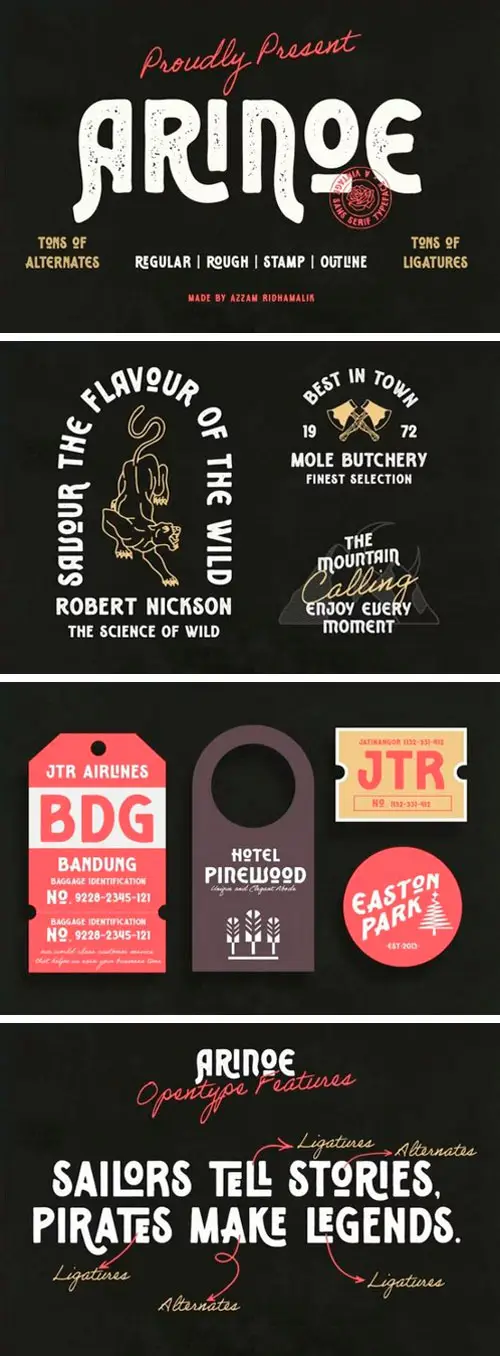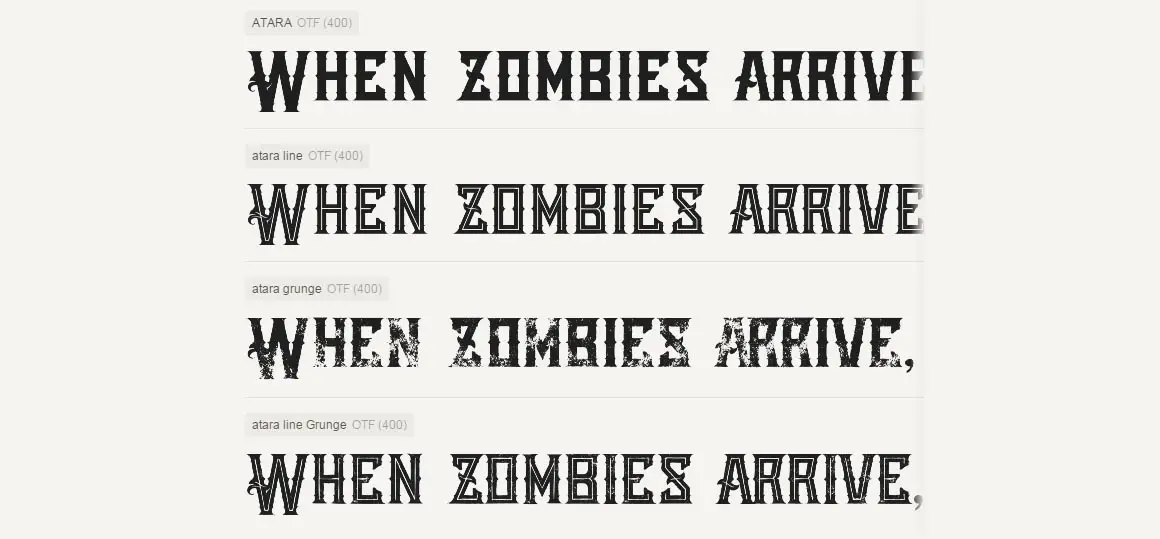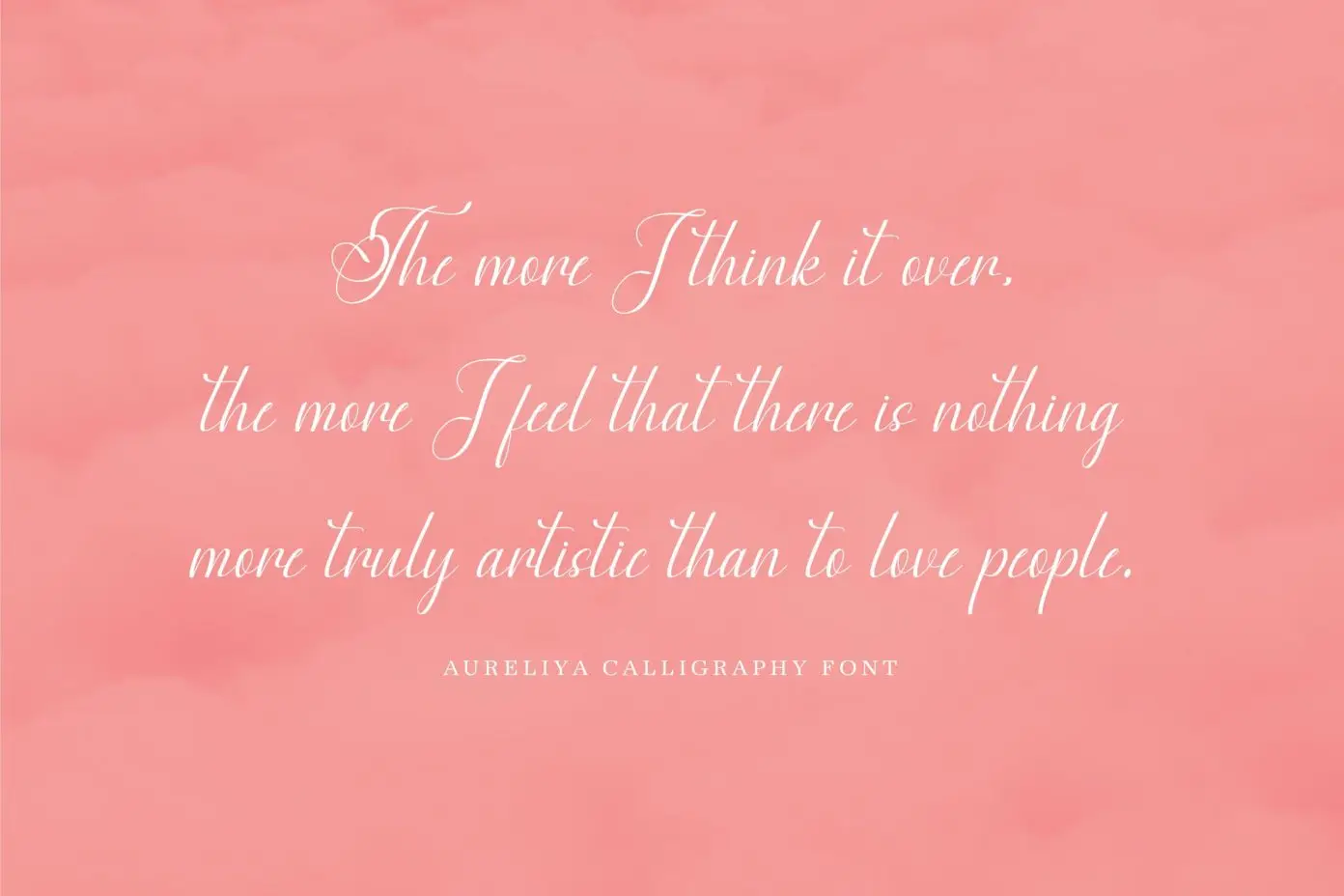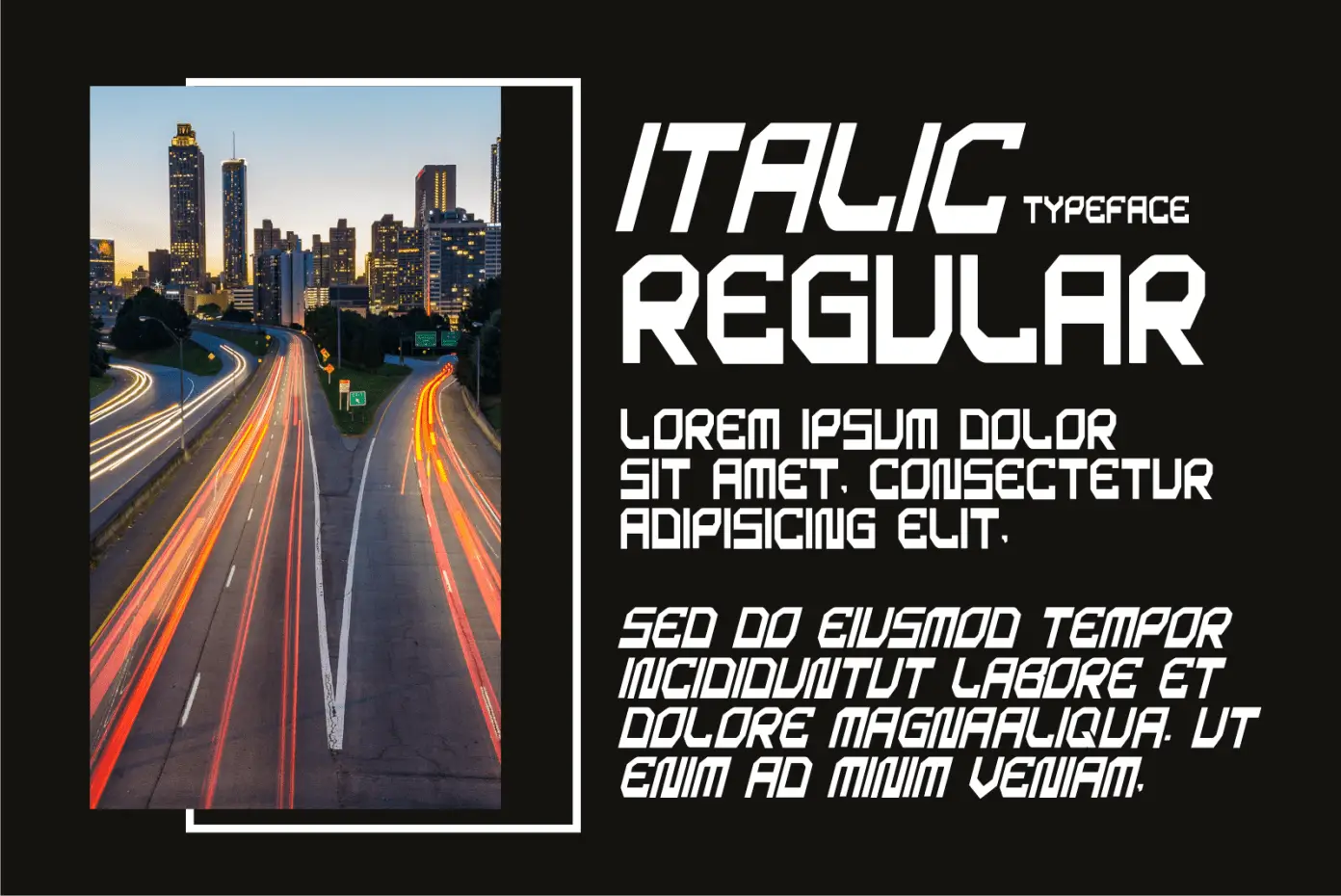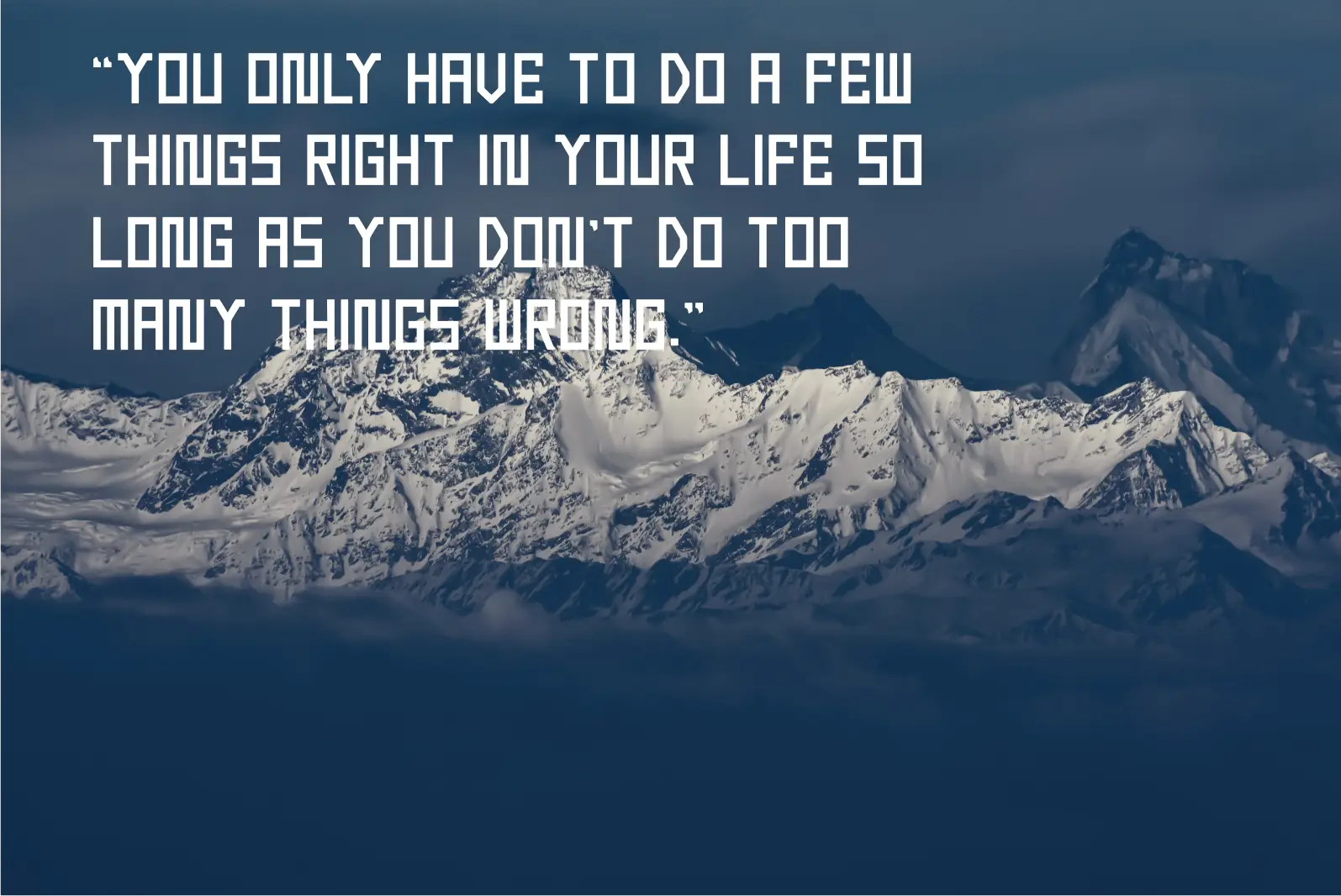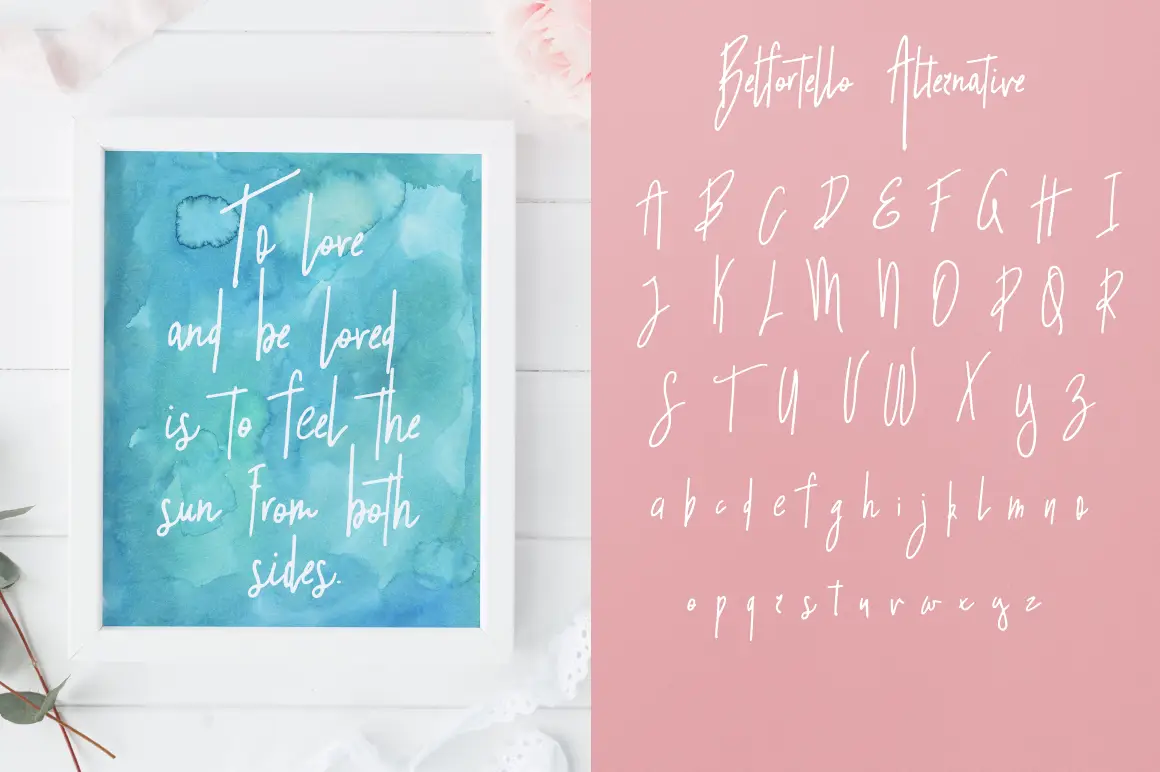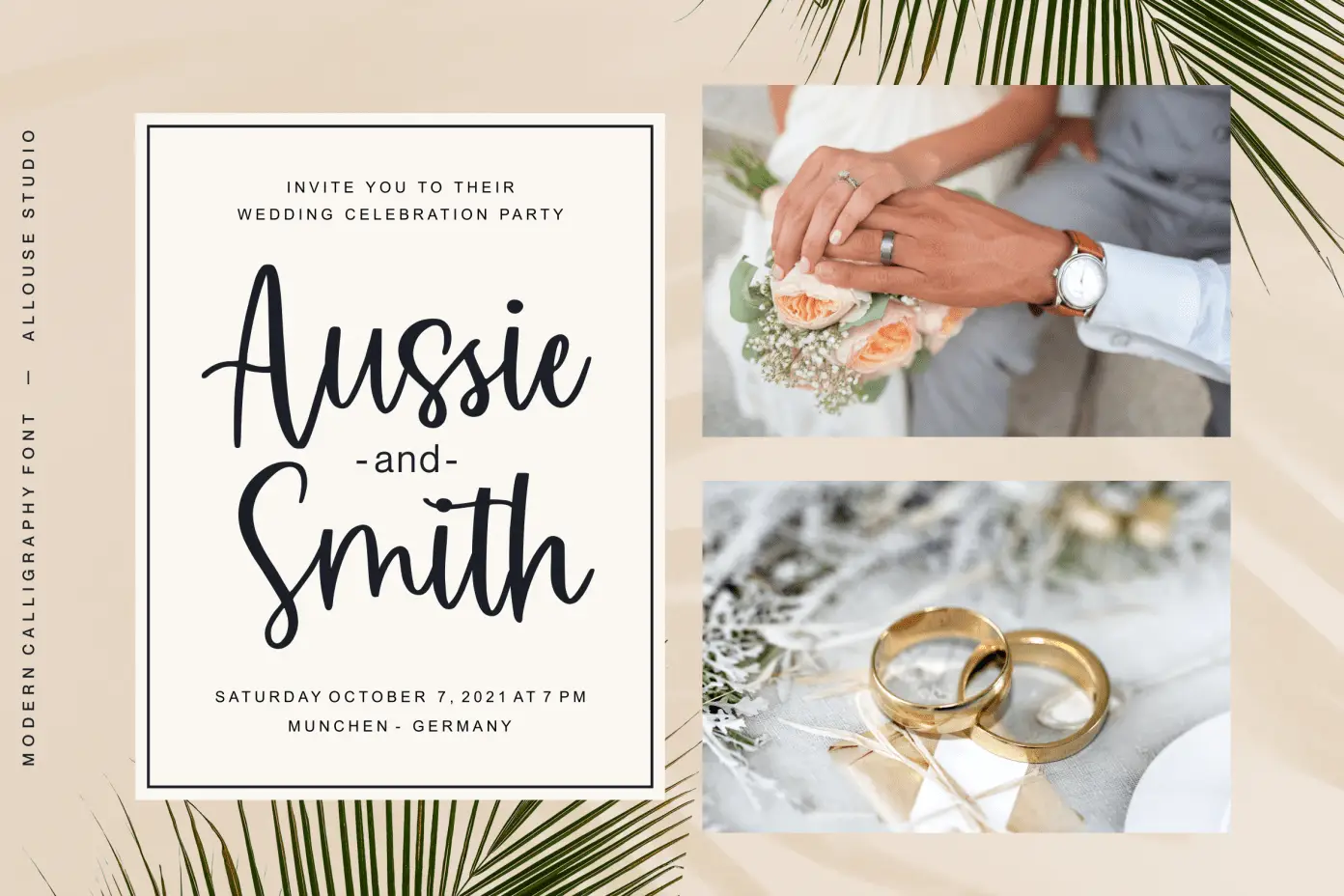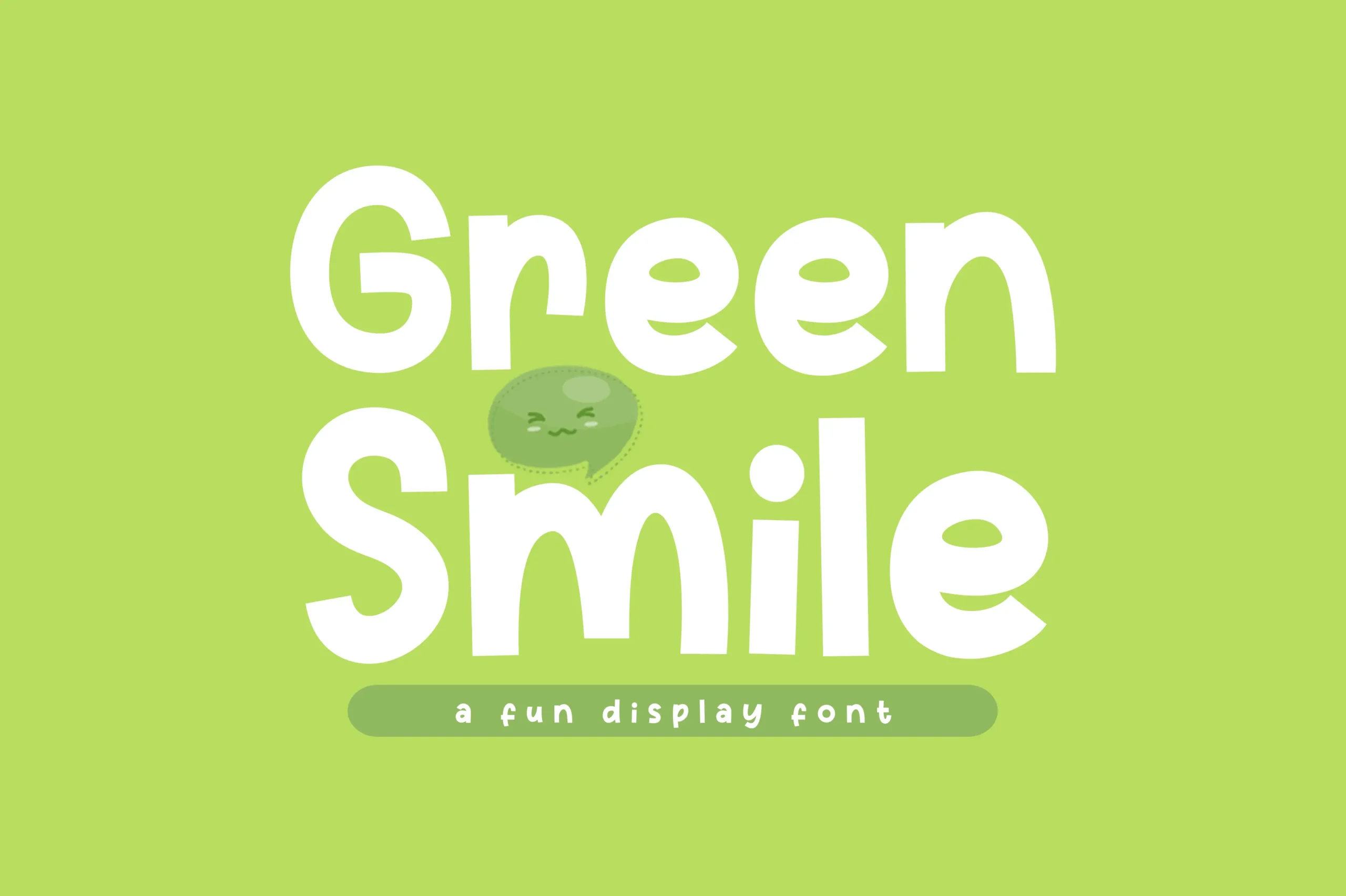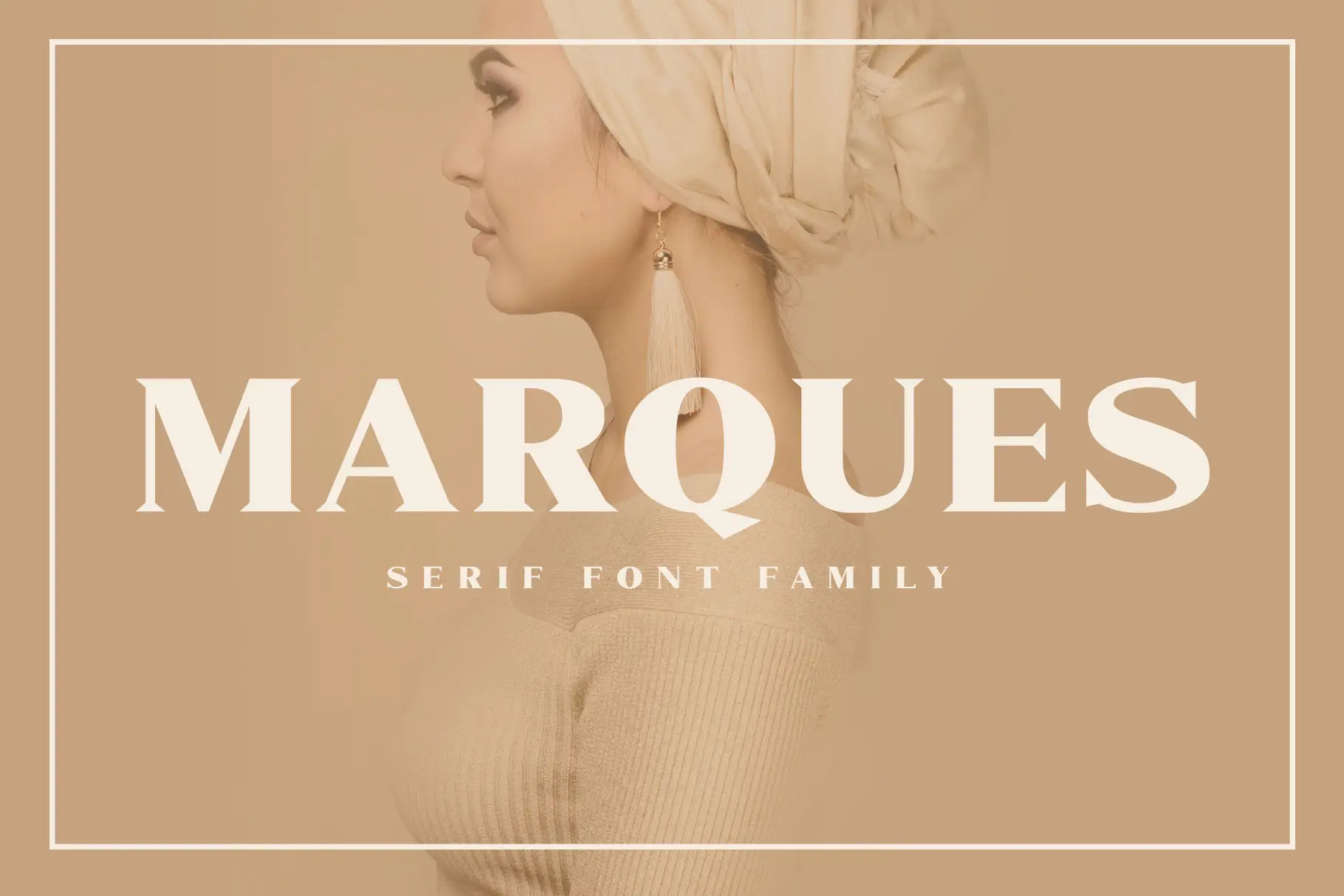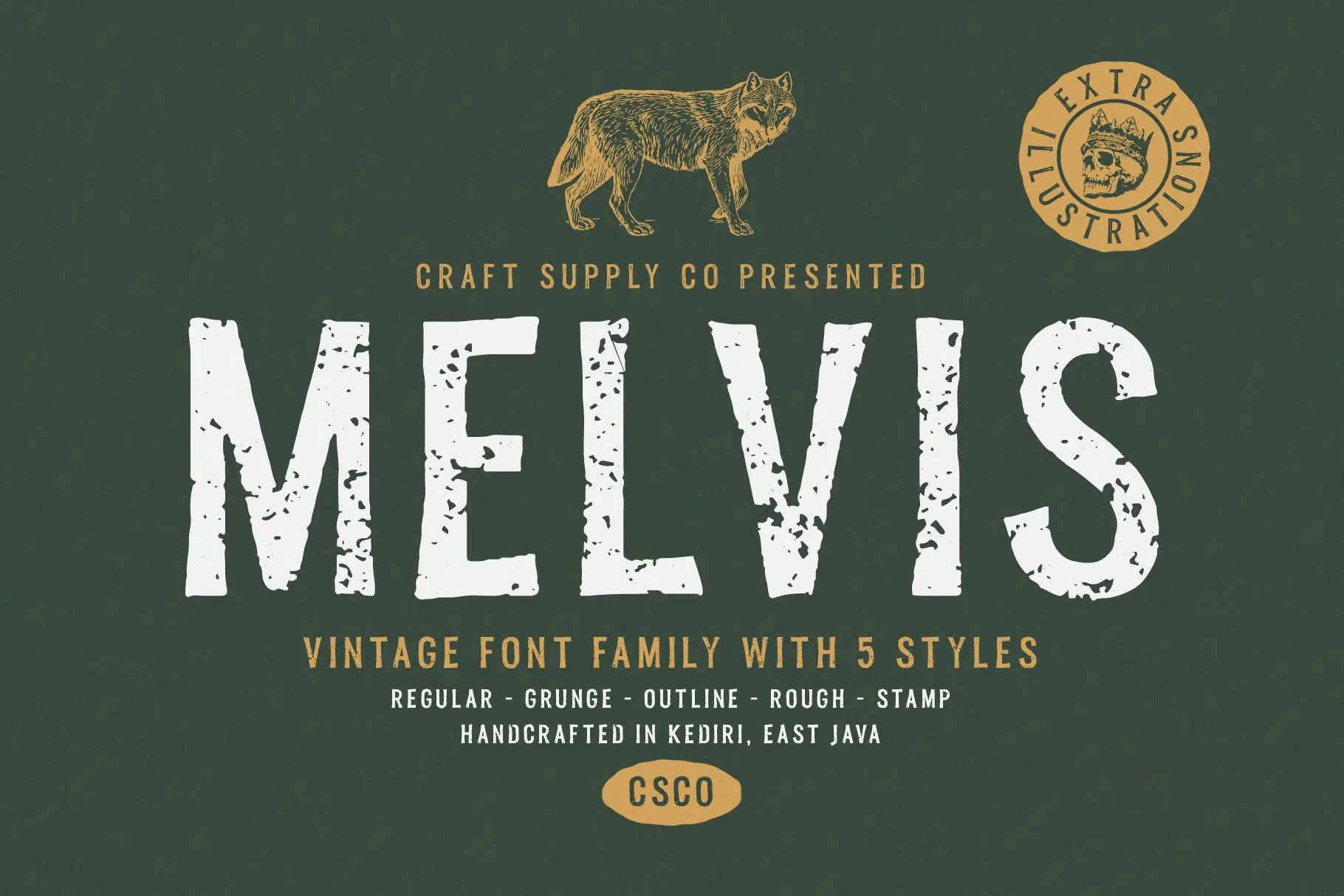
Roku
Unleash your creativity with the **Roku** digital asset! 🚀 It’s packed with high-res graphics and customizable elements that make branding and web design a total breeze. Seriously, your workflow will thank you. 😎
Badger Valley Sans Serif Font
Clean, modern, and incredibly versatile—**Badger Valley** is the sans serif you didn’t know you needed. 🌲 Perfect for branding and digital interfaces, its multiple weights give you total flexibility. Go ahead, make it your go-to. 💻
Aureliya Calligraphy Font
Add a touch of pure elegance to your invitations and logos with **Aureliya**! 💌 This calligraphy font is dripping with sophistication and class. It’s simply *gorgeous* for any project that needs a refined, handwritten feel. 🖊️
Aveosa Display Font
Need something that screams *look at me*? 👀 **Aveosa** is a bold display font with unique character shapes and stunning curves. It’s perfect for headlines and branding that demand attention. Make a statement! 🗣️
Belfortello 2
**Belfortello 2** is back and better than ever! 💥 This versatile design asset comes with high-quality, customizable elements that add a professional, unique flair to any project. Super easy to use and totally stunning. ✨
Bellamosley Script Font
Get ready to fall in love with **Bellamosley**! 💕 Its flowing cursive letters are the definition of elegance and sophistication. Perfect for wedding invitations or any project that needs a romantic, personal touch. 📜
Atara
Level up your toolkit with **Atara**! 🛠️ This collection of carefully crafted, high-quality graphics is perfect for both print and digital media. It’s the versatile asset that every designer needs tucked in their back pocket. 🔥
Autography Script Font
**Autography** captures the magic of real handwriting! ✍️ Its flowing curves and unique character make it incredibly charming for branding, quotes, and social media graphics. And the best part? It’s super easy to read. 👌
Jenorex Friday – Font Duo Vqdfgk
Who doesn’t love a perfect pairing? 💑 **Jenorex Friday** gives you a bold script and a clean sans-serif that work together like peanut butter and jelly. It’s *everything* you need for dynamic, pro-level designs. 🚀
Arlita Font
Elegance and versatility collide in the **Arlita Font**! 👑 With styles ranging from Light to Bold, and supported in OTF, TTF, and WOFF, it’s ready for any branding or print project you throw at it. A total workhorse. 💪
Bageor Display Font
Make your text unforgettable with **Bageor**! 📣 This display font has a bold, distinctive style that’s perfect for posters and eye-catching headlines. Plus, it supports a wide range of languages. 🌍
Bondie Slab
Slab serif lovers, rejoice! 🎉 **Bondie Slab** brings a modern twist to a classic style. With multiple weights and super clear letterforms, it’s incredibly readable and perfect for both digital and print projects. 📚
Arinoe Display Font
**Arinoe** is a stunning display font that makes any headline pop! 🌟 Its modern aesthetic and bold presence are ideal for logos and branding. Want to stand out? This is your font. 👑
Royalite Script Family
Feel like royalty with the **Royalite Script Family**! 👑 This elegant collection features multiple styles and flowing curves that add pure sophistication to invitations and branding. It’s the definition of classy. 🌹
Nordin Vintage
Love that retro vibe? 🕰️ **Nordin Vintage** is packed with high-res textures, patterns, and graphics that bring a nostalgic, classic feel to your work. It’s perfect for adding that perfect aged touch. 🍂
Marques
**Marques** is the Swiss Army knife of design assets! 🪛 It offers a variety of high-quality elements that are super easy to customize and compatible with all your favorite software. A must-have for any creative. ✅
Melvis
Add a dash of creativity with **Melvis**! 🎨 This modern asset is perfect for branding, web design, and print. Its high-resolution files are a breeze to customize, helping you make your designs stand out effortlessly. ✨